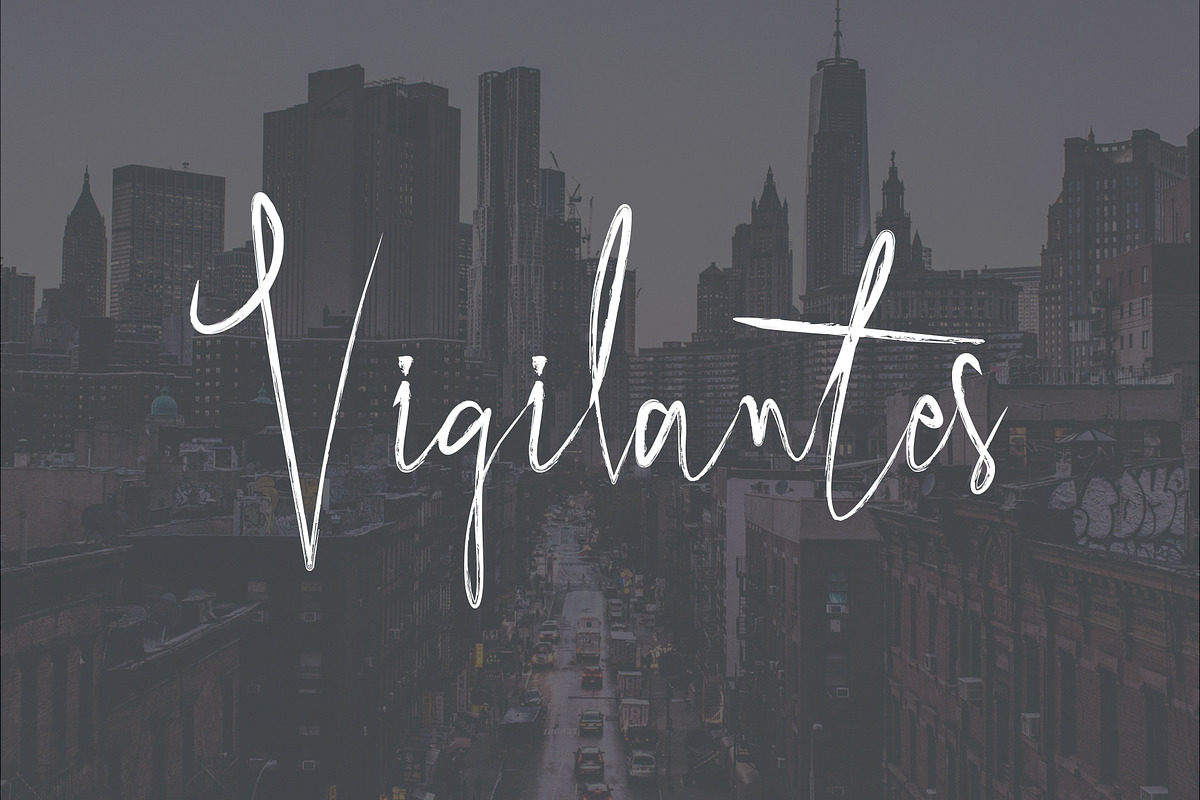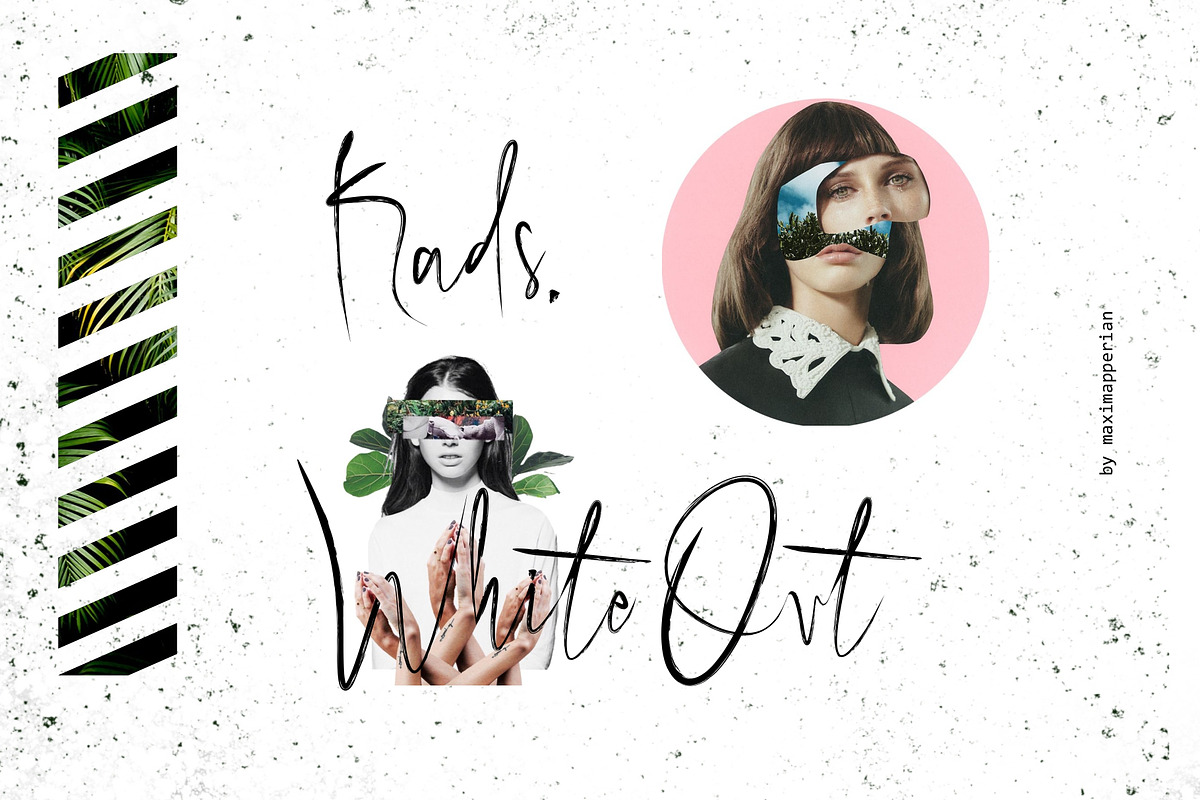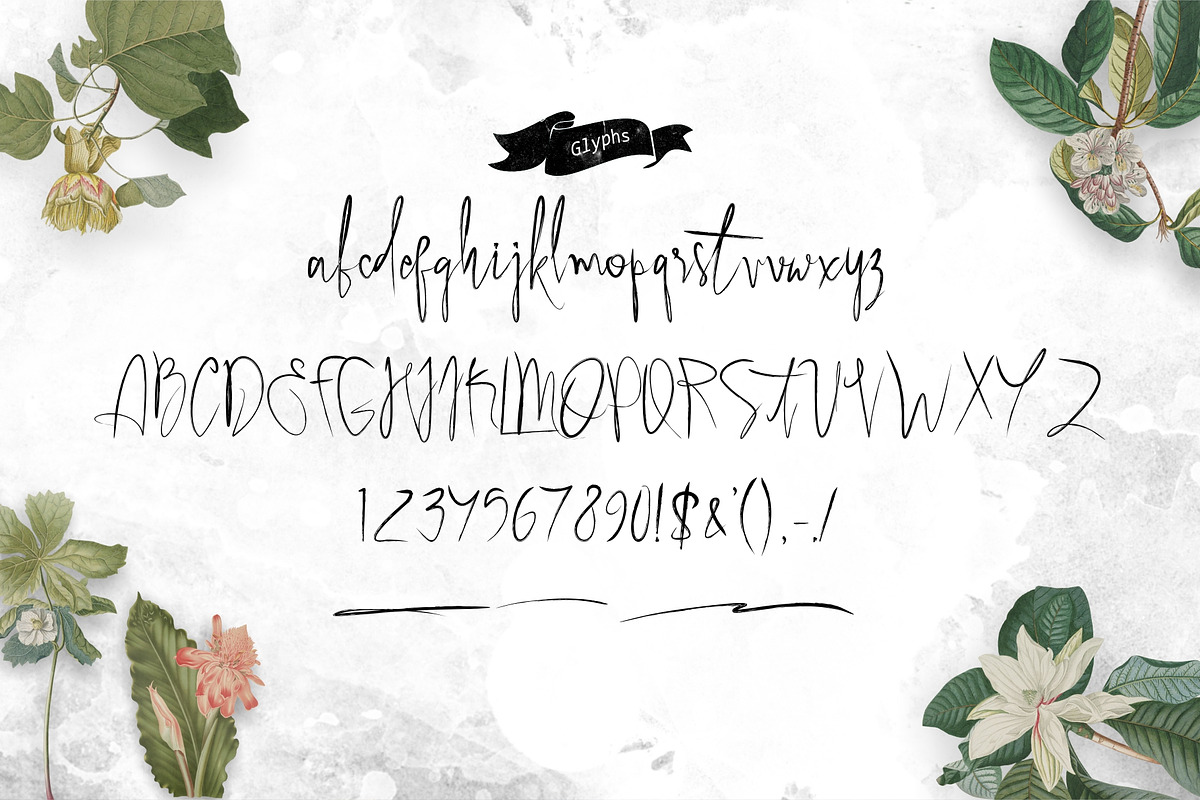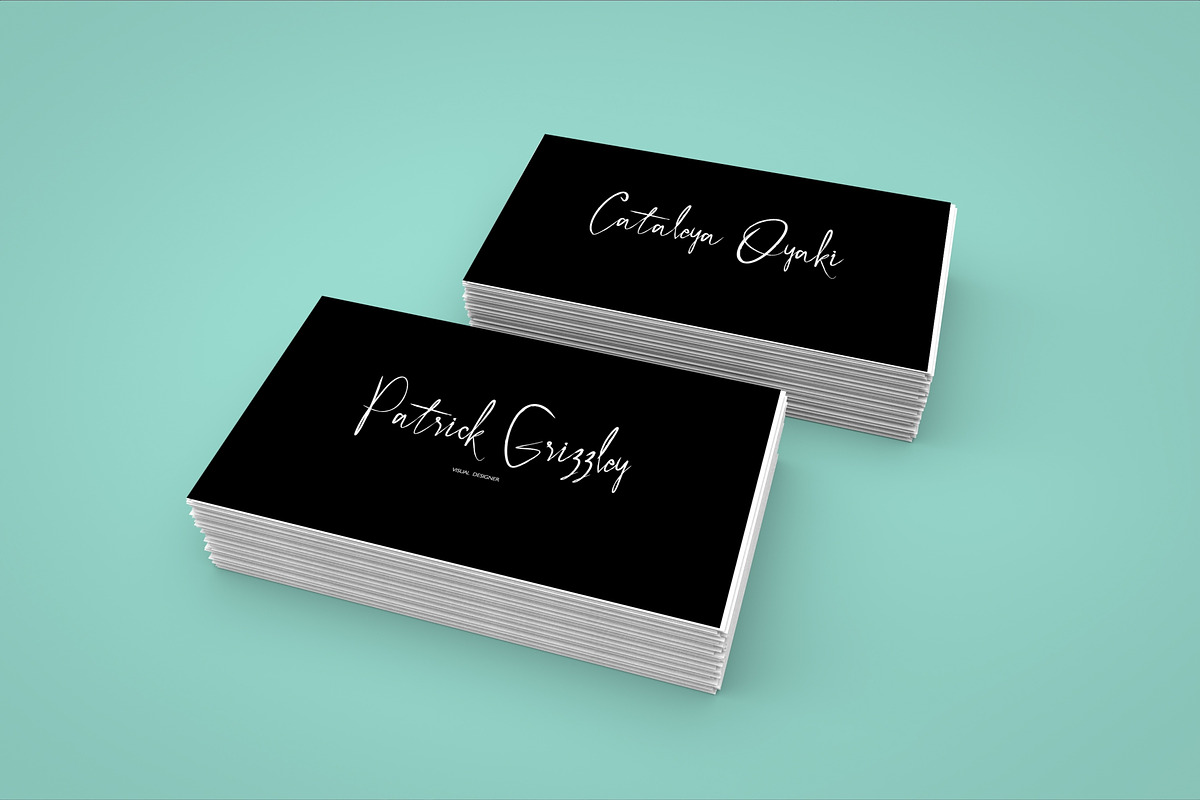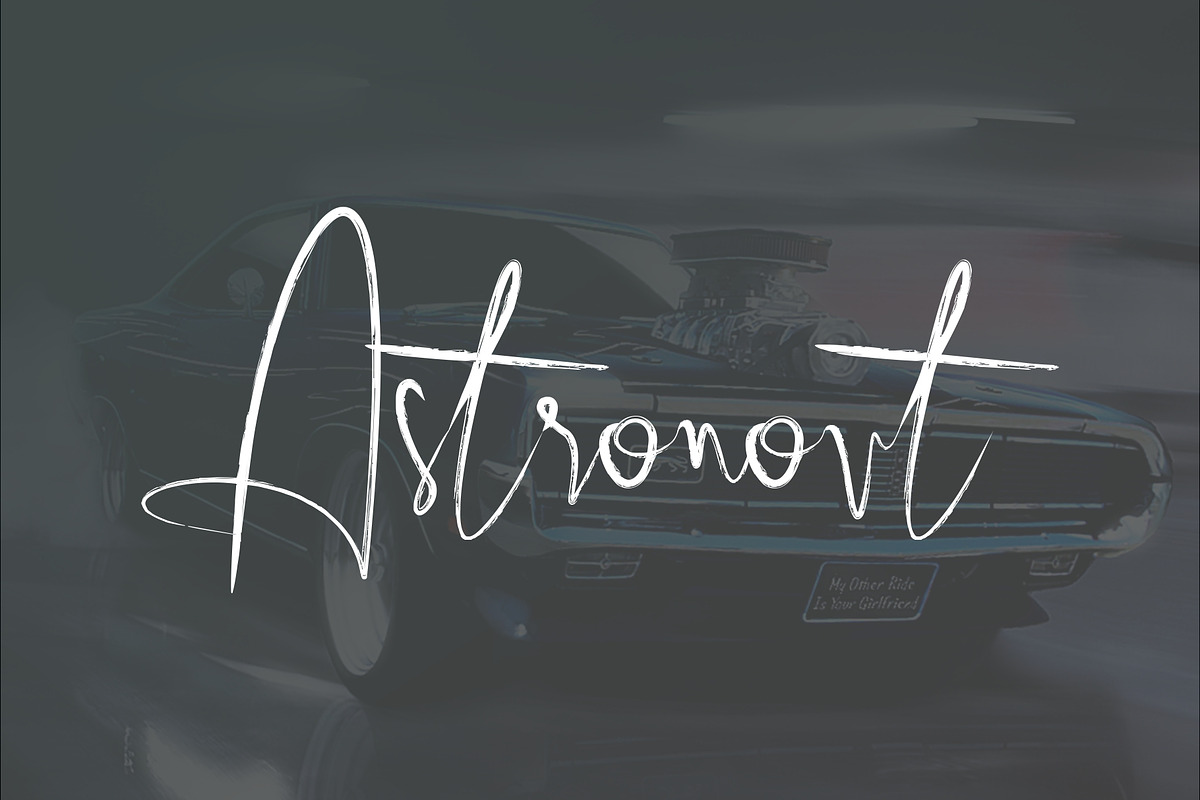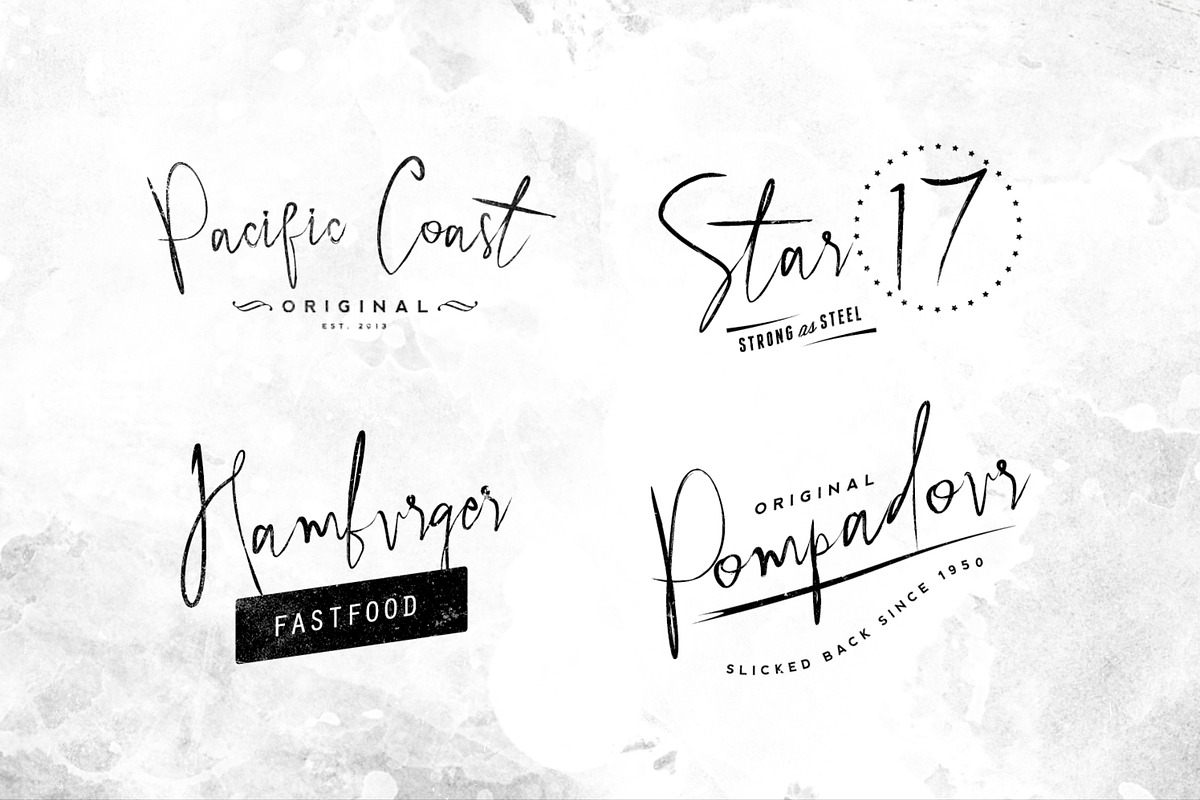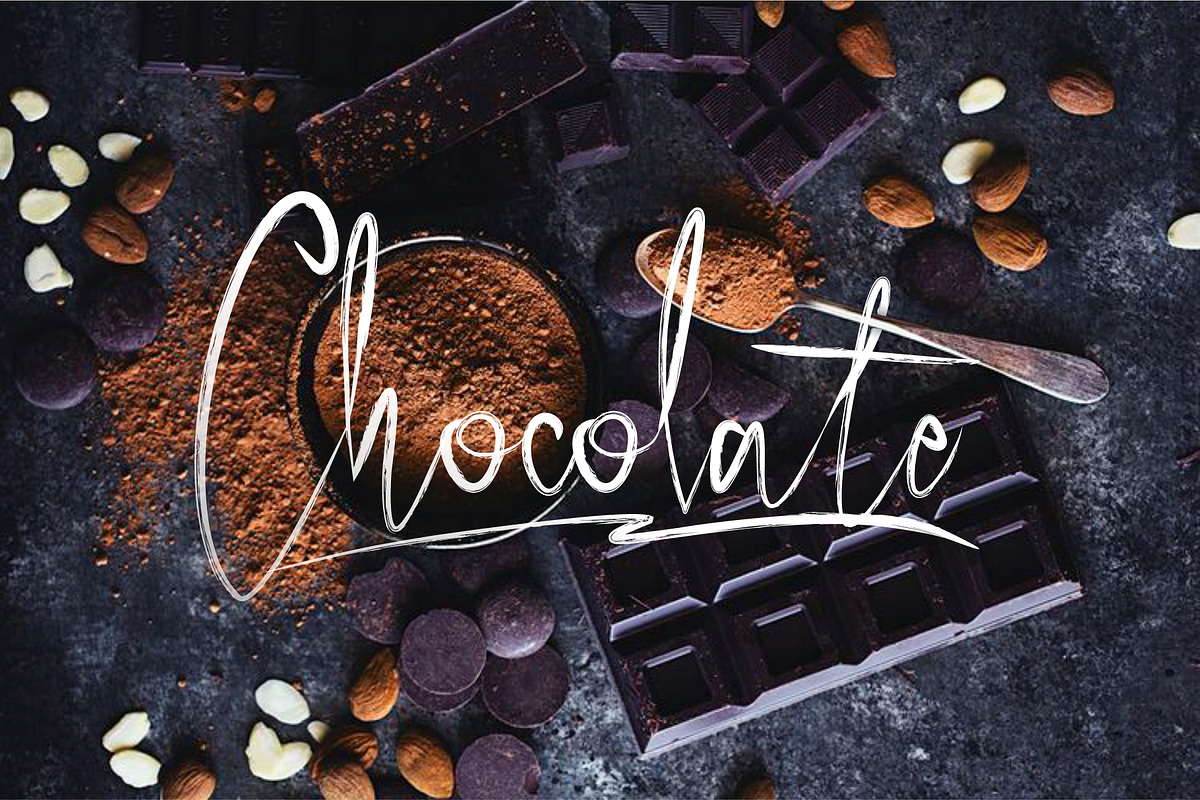
Rhinchost Typeface
Give your designs an authentic handcrafted feel. “Rhinchost Typeface” is perfectly suited to stationery, busuness card, logos and much more.
Why Rhinchost Typeface is worth a look
Rhinchost Typeface by Maxim apperian fits naturally into Branding, posters, packaging, typography.